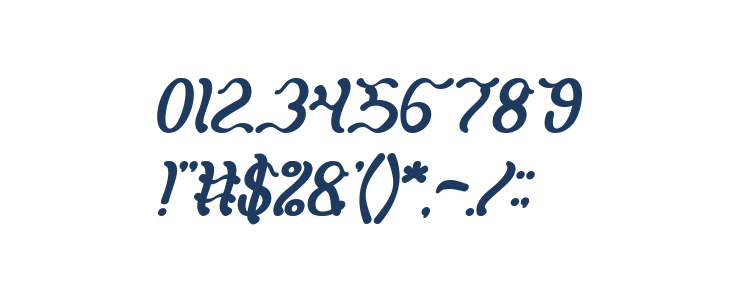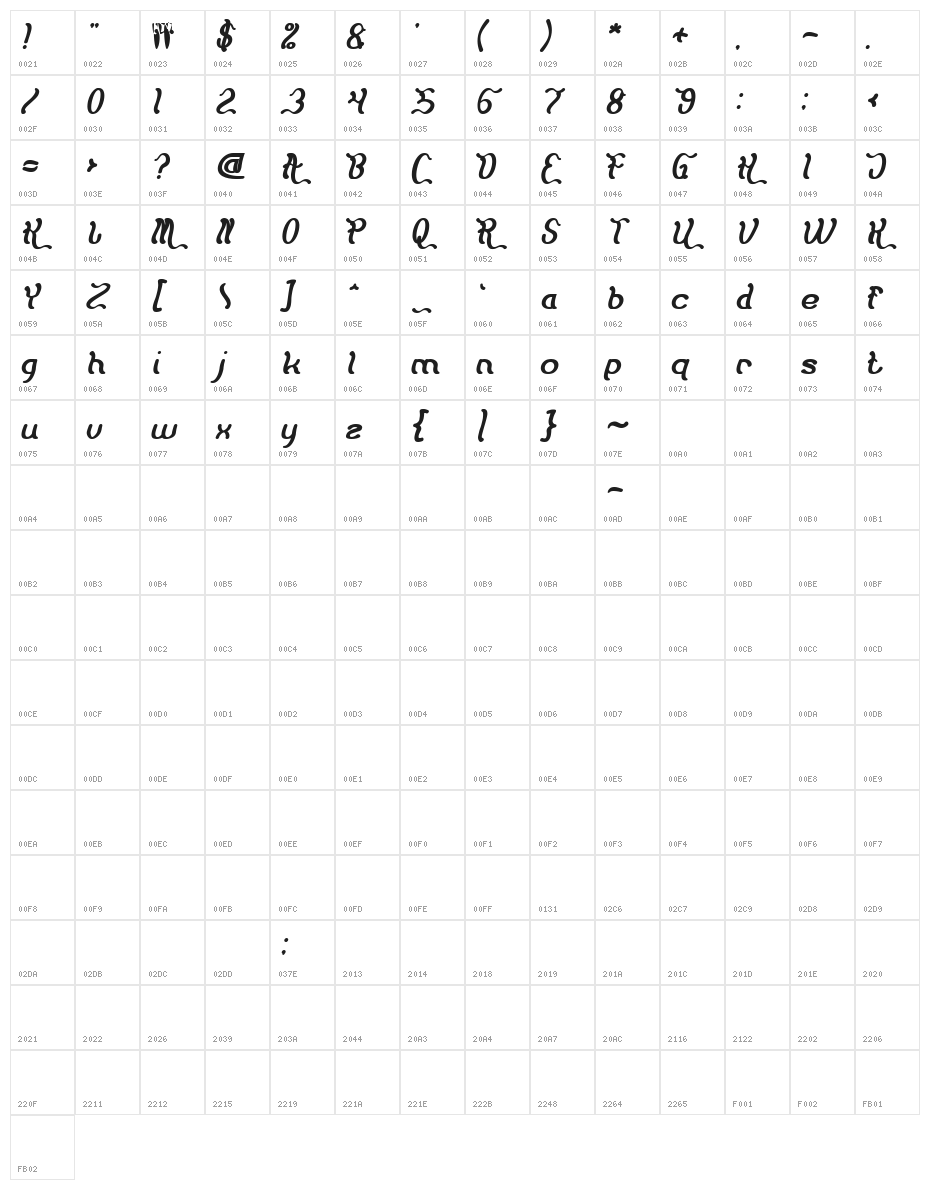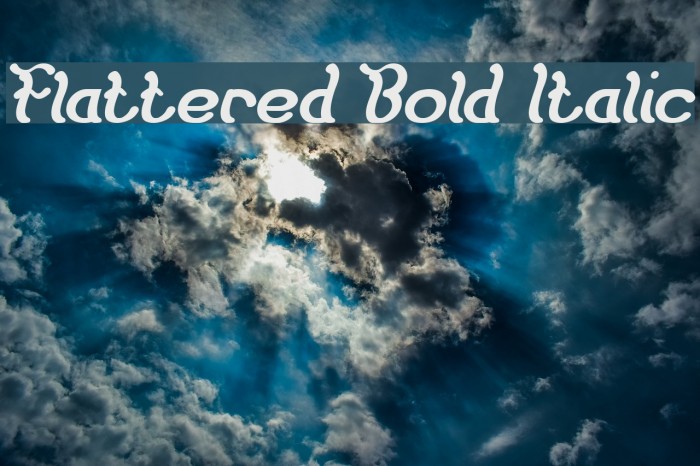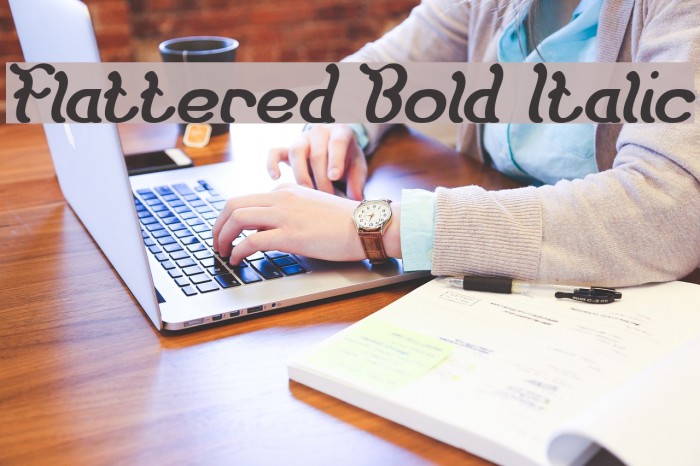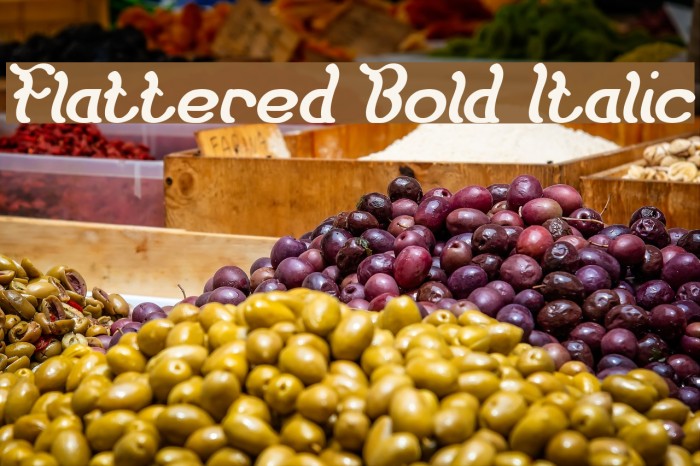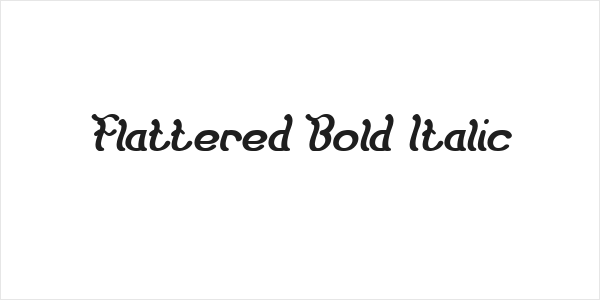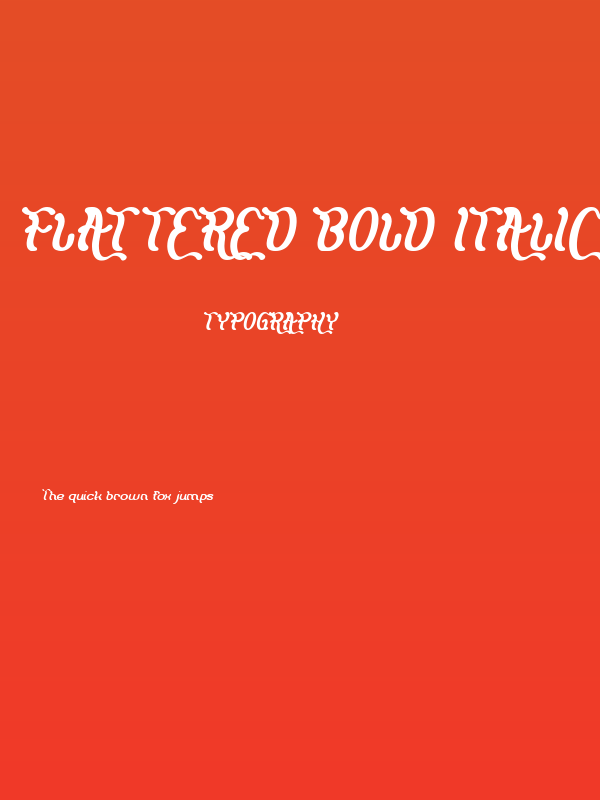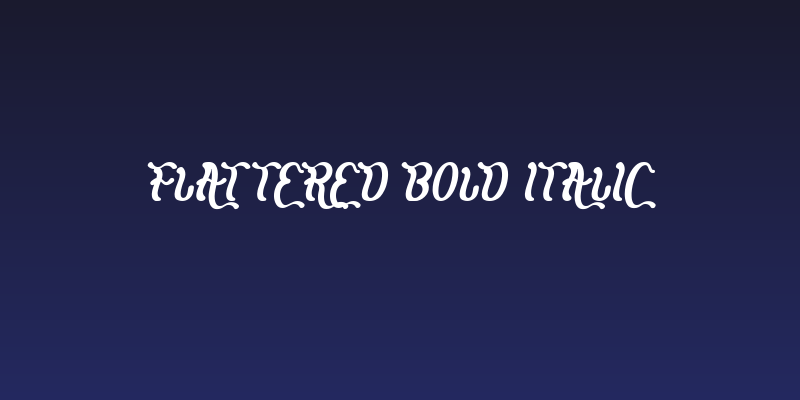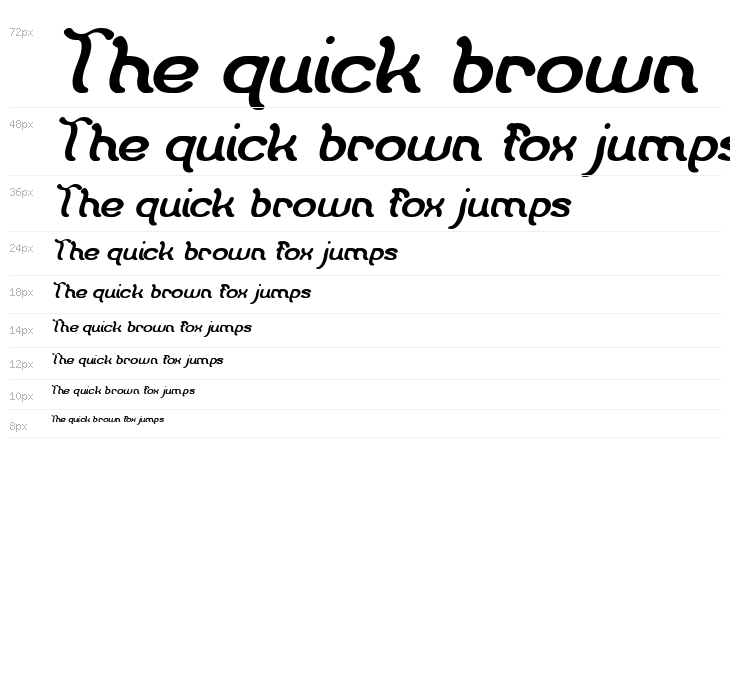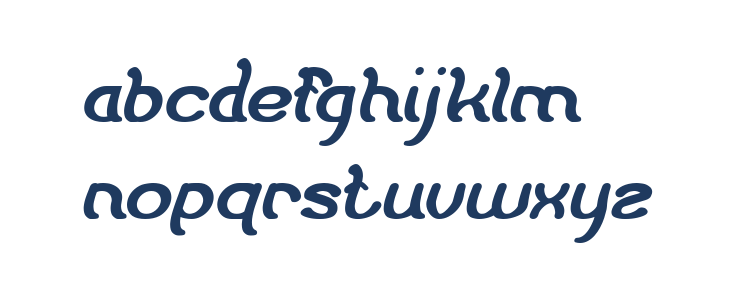
Flattered Bold Italic Font
Flattered Bold Italic Description
This font features a bold and italicized style with a distinctive decorative flair. The characters exhibit a playful and whimsical design, characterized by exaggerated curves and swirls that give it a lively and dynamic appearance. The uppercase and lowercase letters maintain a consistent flow, with the uppercase letters displaying more pronounced embellishments. The numerals and special characters follow the same stylistic approach, ensuring uniformity across the typeface. The overall look is both bold and expressive, making it suitable for creative and artistic projects.
| Use Case | Headlines, Logos, Artistic Designs |
| Proposed Projects | Ideal for creative projects such as posters, invitations, branding, and artistic designs that require a lively and expressive typeface. |